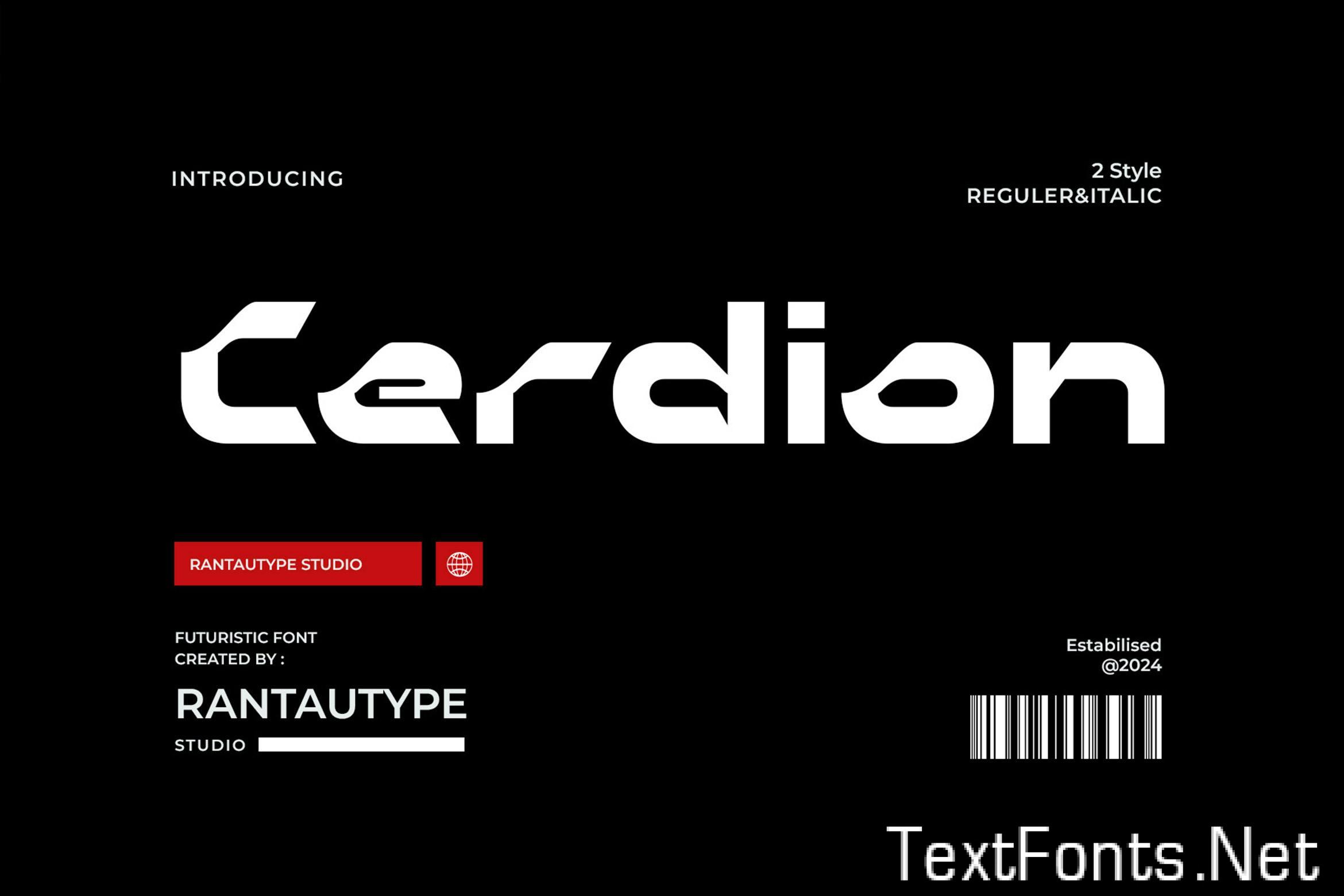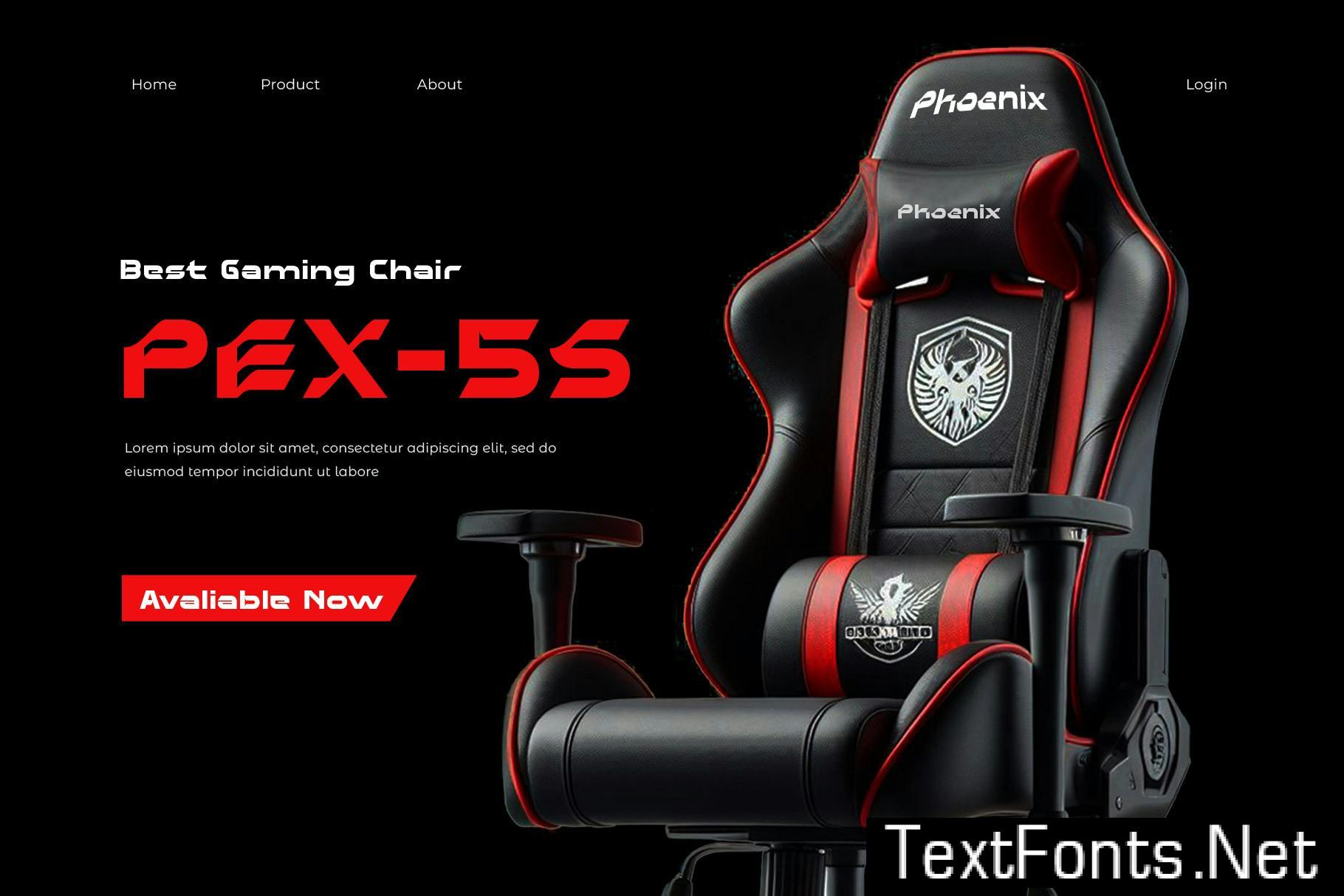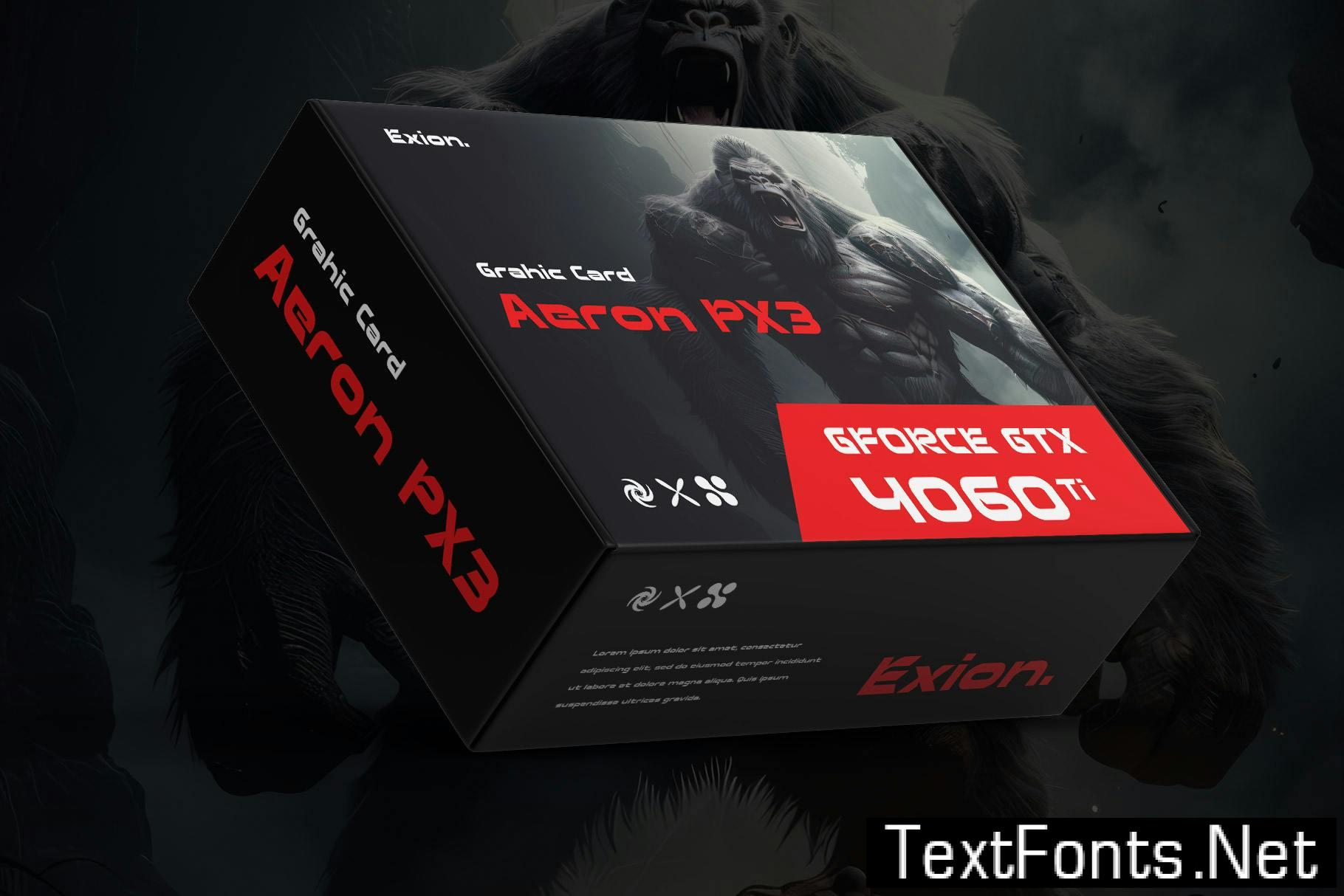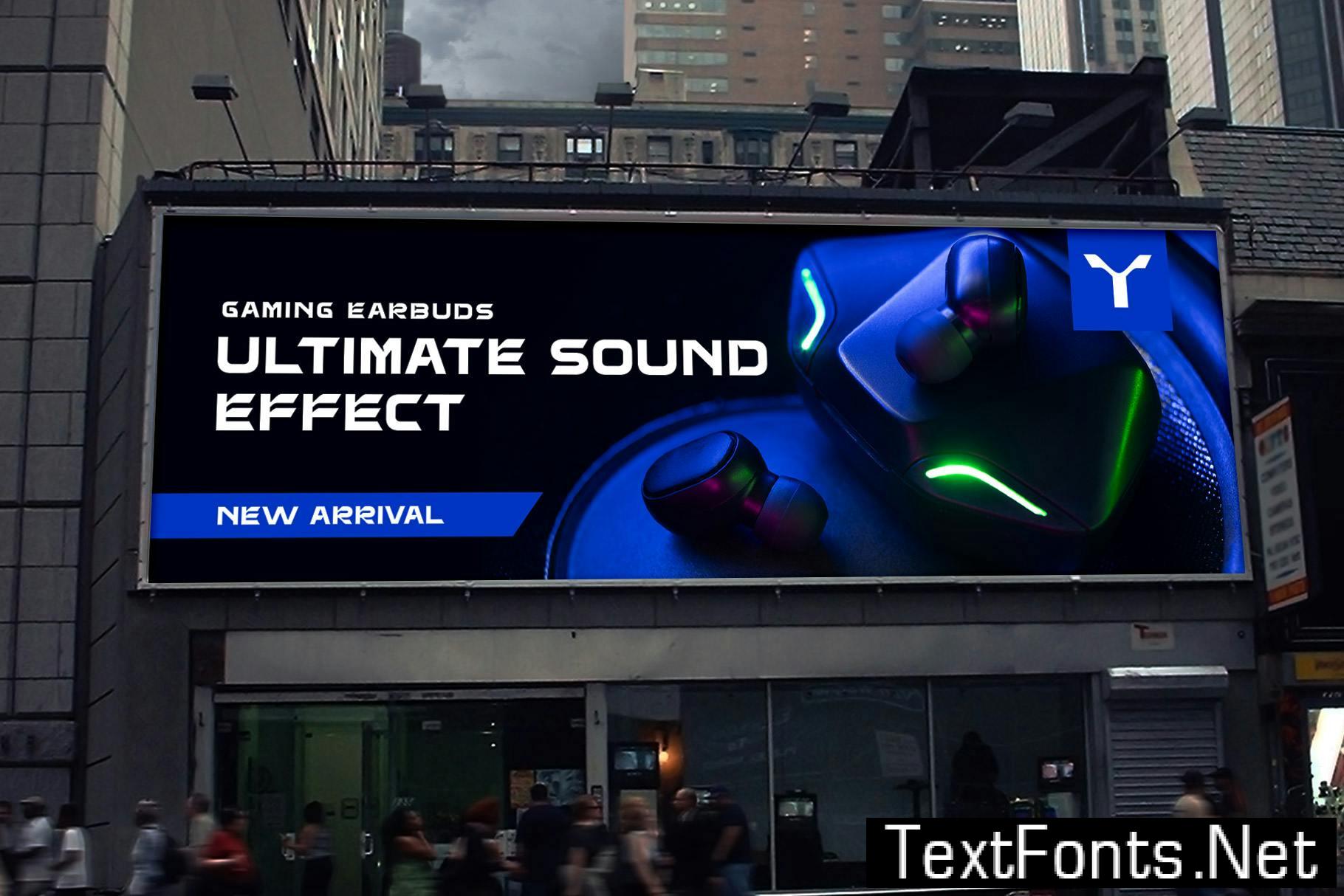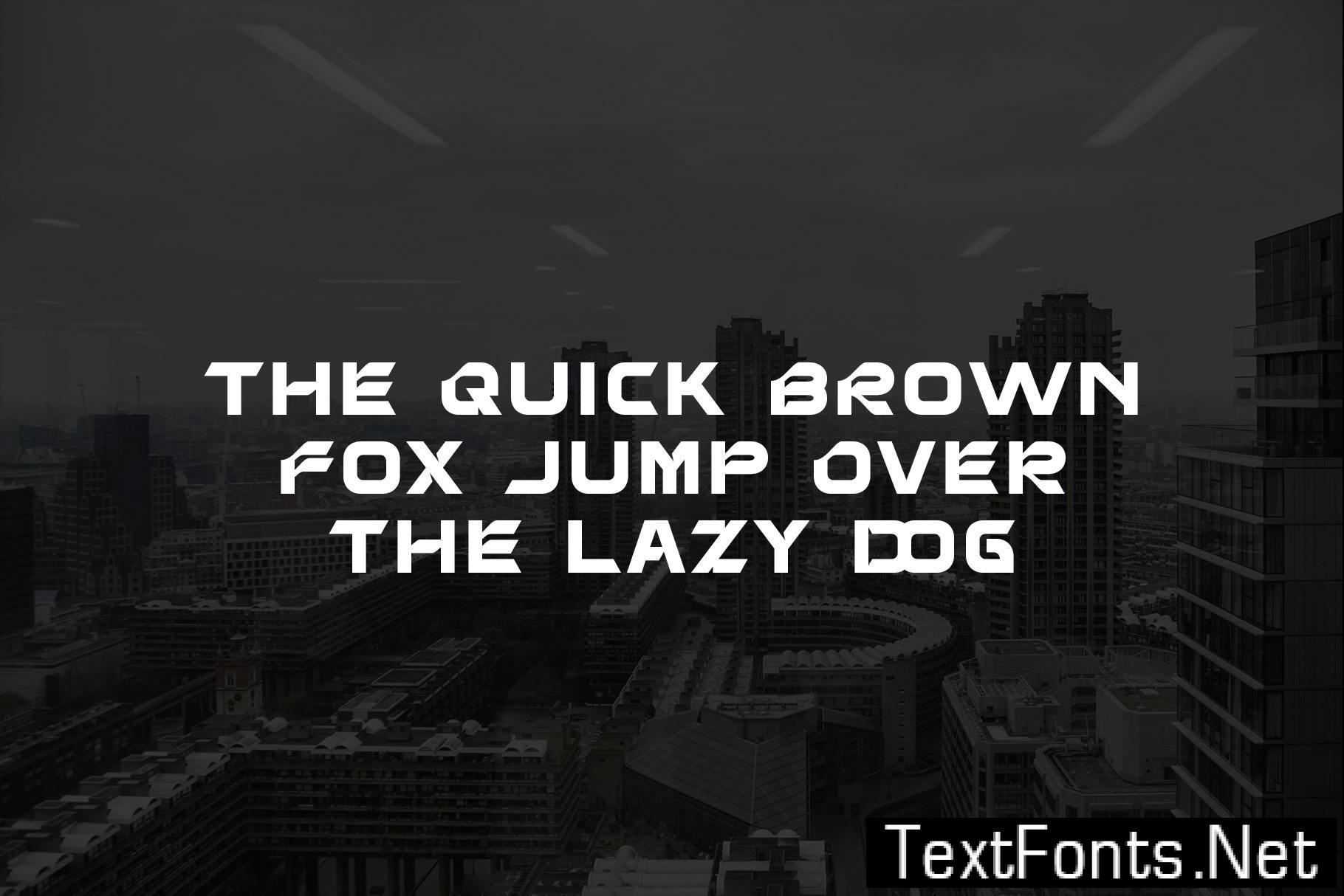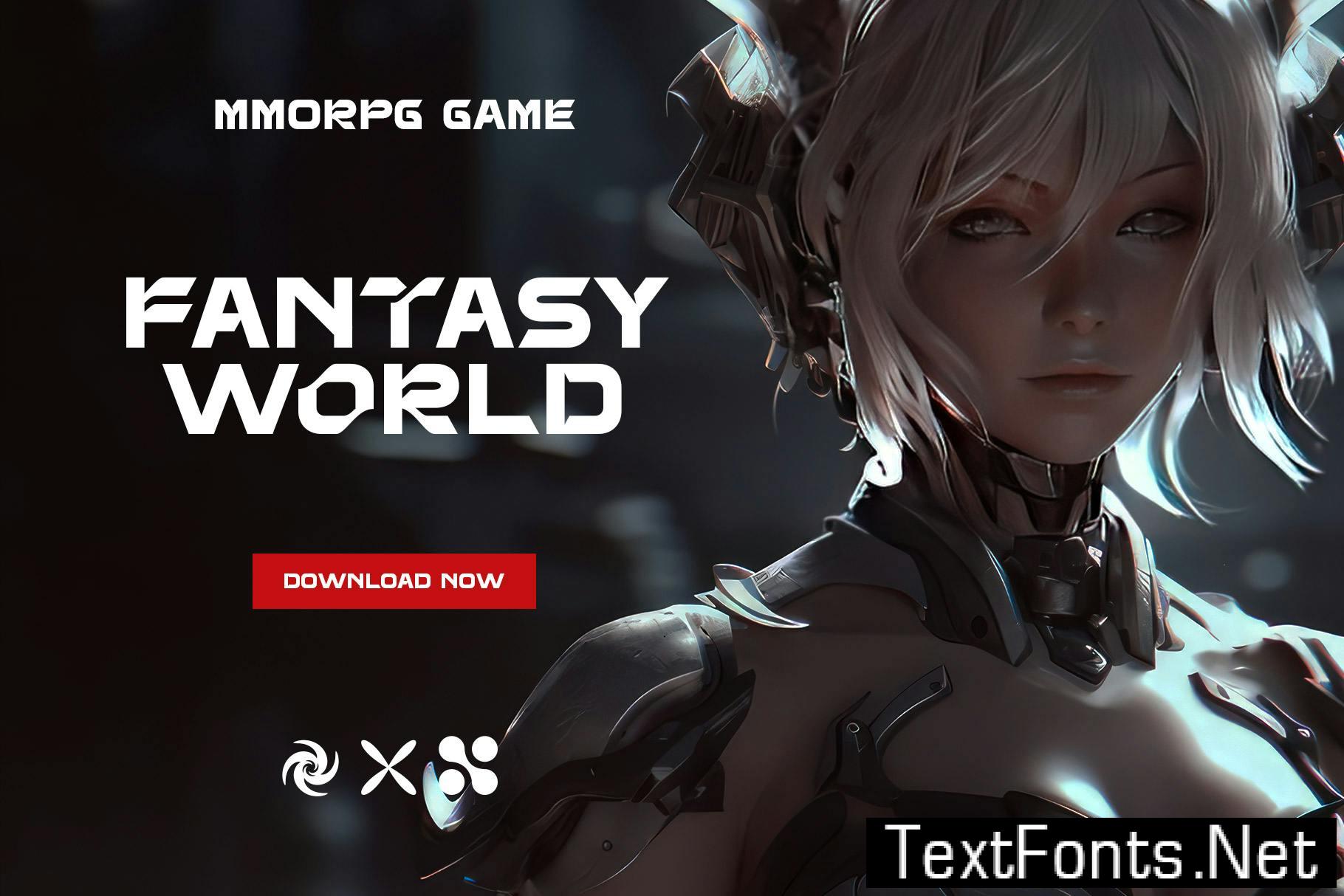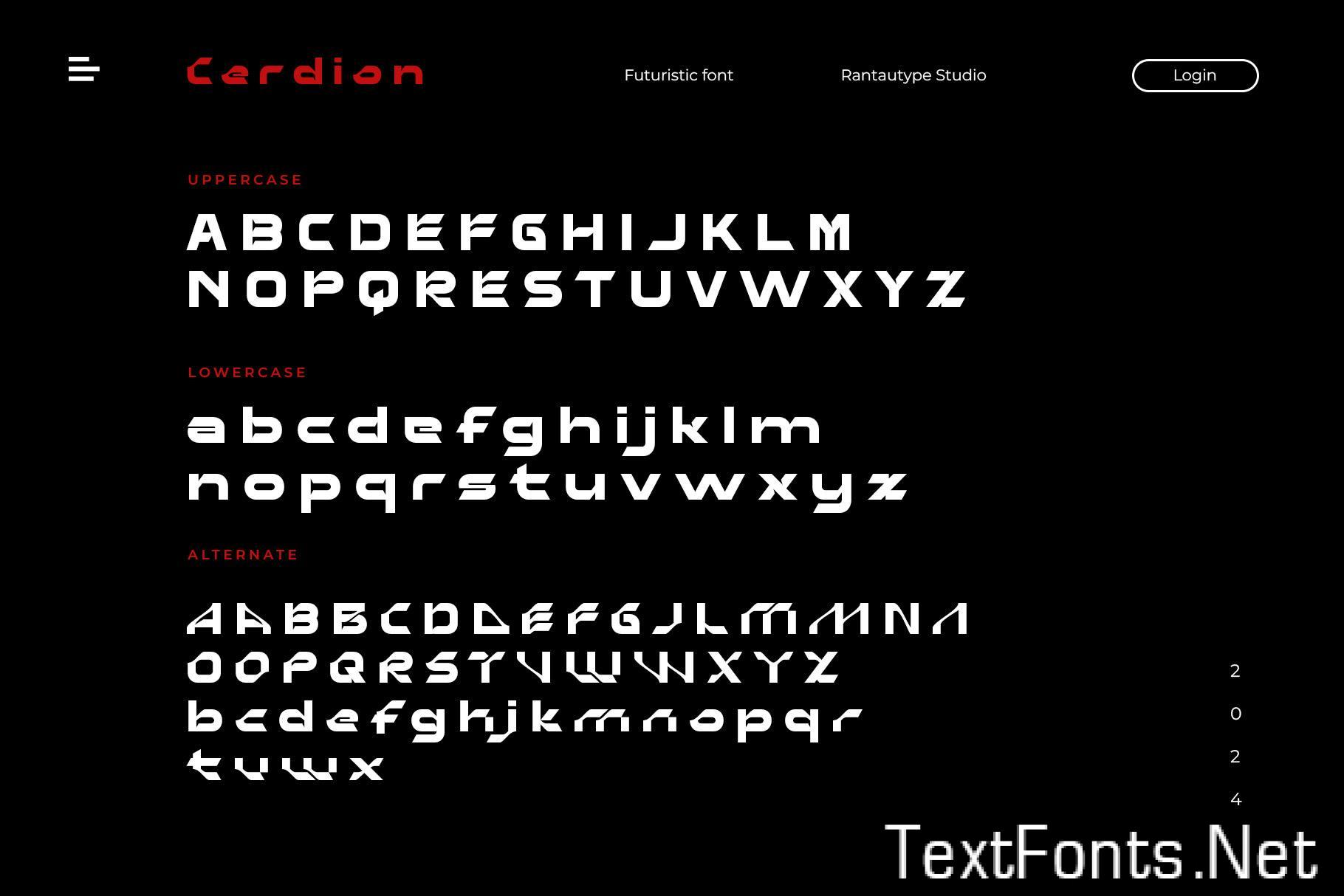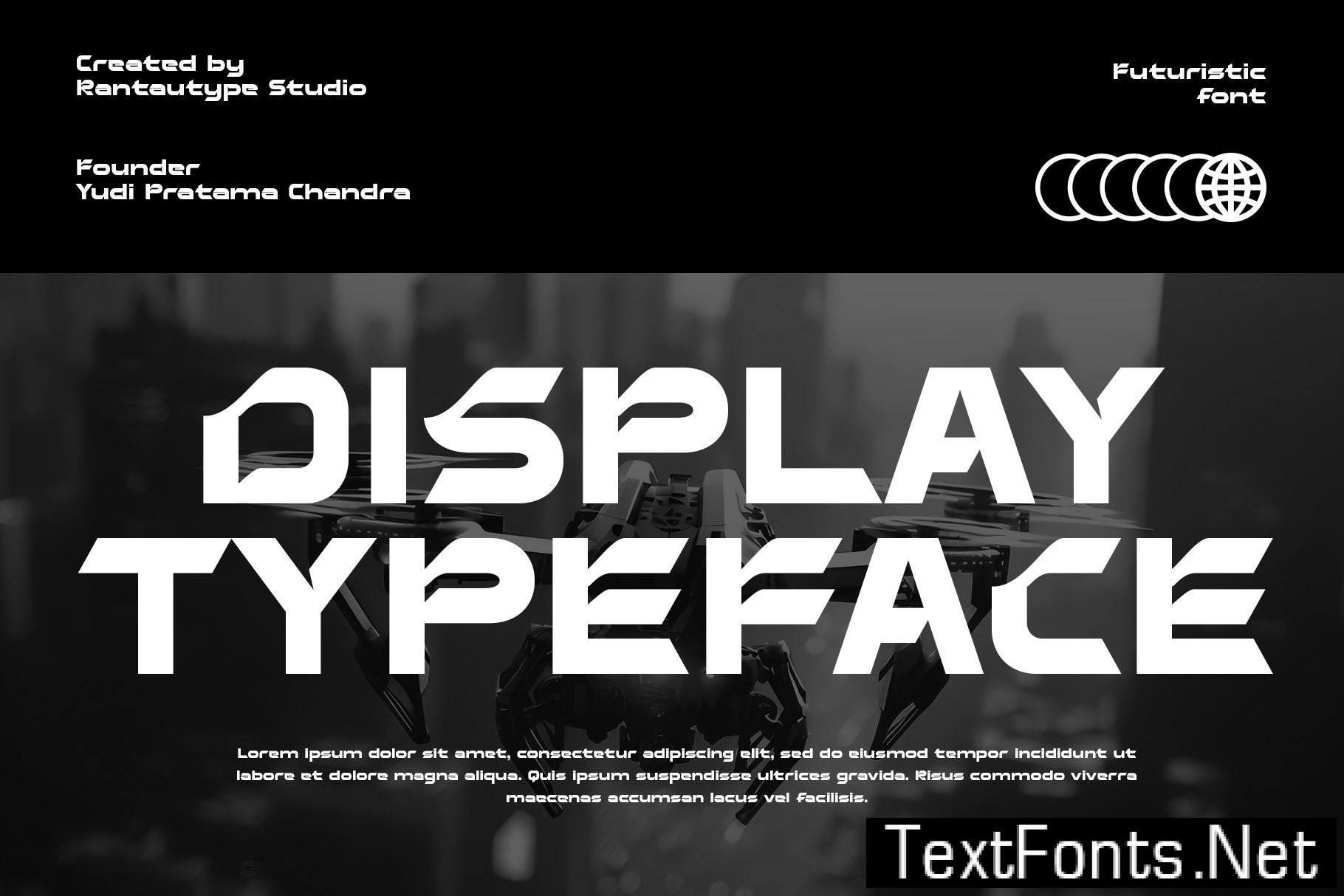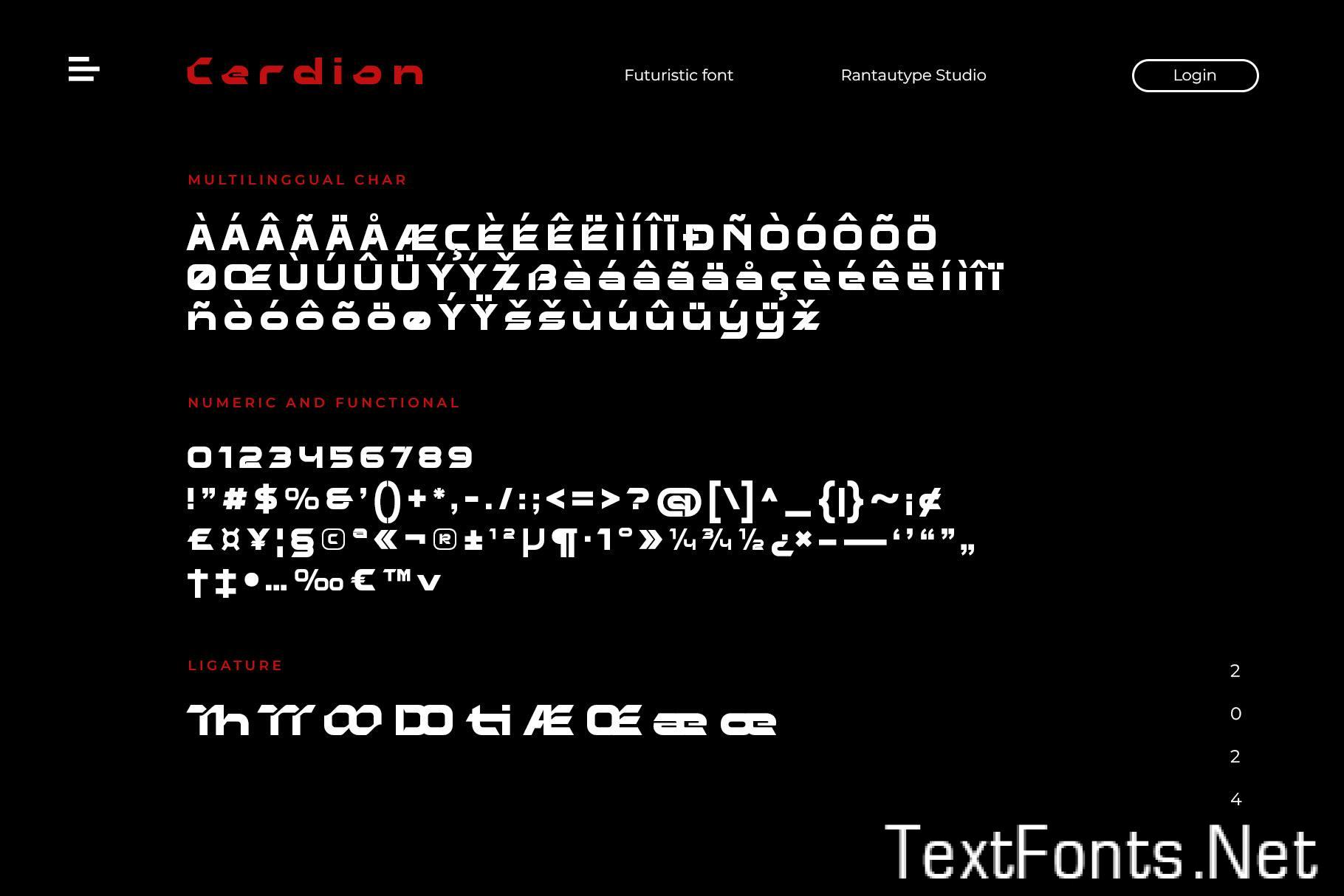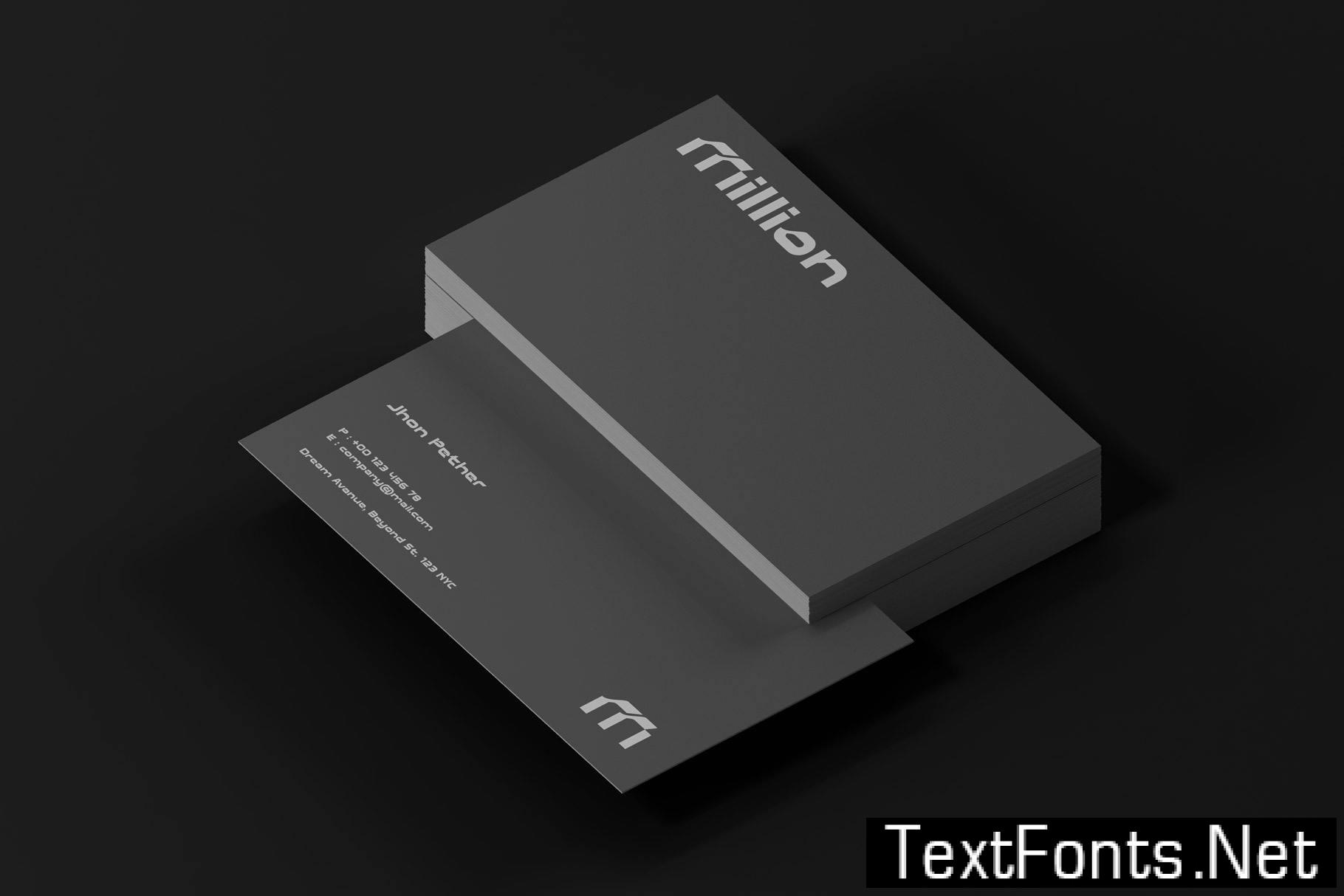
Cerdion is futuristic font with unique shape. Cerdion inspire by modern era with evolution technology growing fast, role of the “cerdion” font will be able to help you create an attractive design project.
Cerdion is a perfectly choice for any creative endeavor, chic, lifestyle design such as logos, advertisements, stationery, branding project, display and magazine, invitation, corporate brand, product design, label, business project and many other project with futuristic touch.
* Standart Glyphs
* Numberial and Functional
* Alternate and Ligature
Fonts include **Multilingual Character** for: Afrikaans, Albanian, Asu, Basque, Bemba, Bena, Breton, Chiga, Cornish, Dutch, English, Estonian, Filipino, Finnish, Friulian, Galician, Gusii, Indonesian, Irish, Italian, Kabuverdianu, Kalenjin, Kinyarwanda, Luo, Luxembourgish, Luyia, Machame, Makhuwa-Meetto, Makonde, Malagasy, Manx, Morisyen, North, Ndebele, Nyankole, Oromo, Portuguese, Quechua, Romansh, Rombo, Rundi, Rwa, Samburu, Sango, Sangu, Scottish, Gaelic, Sena, Shambala, Shona, Soga, Somali, Spanish, Swahili, Swedish, Swiss, German.